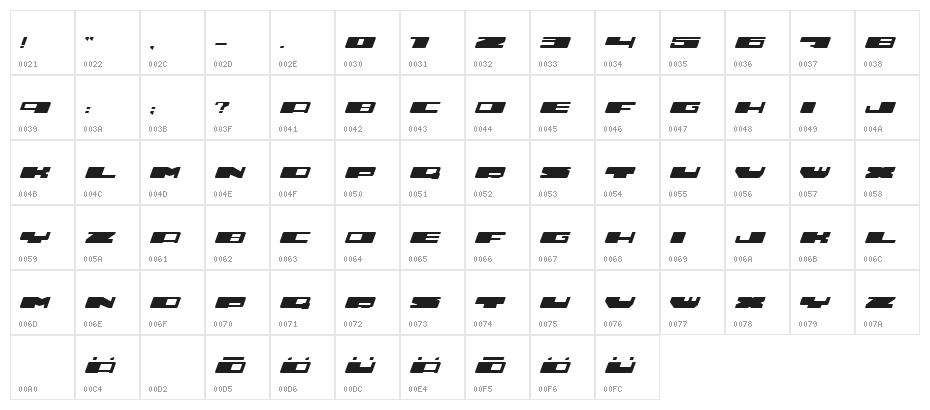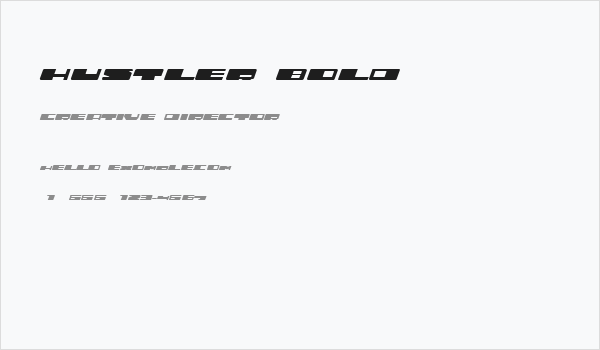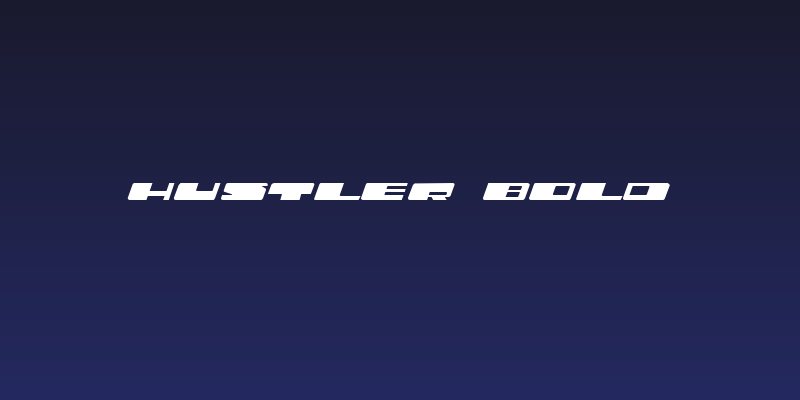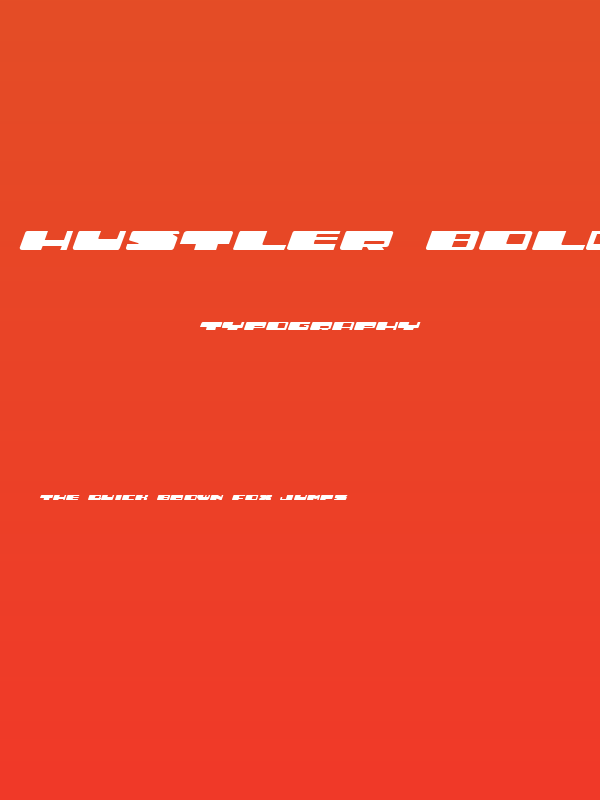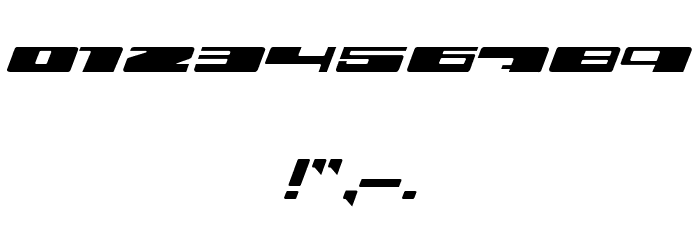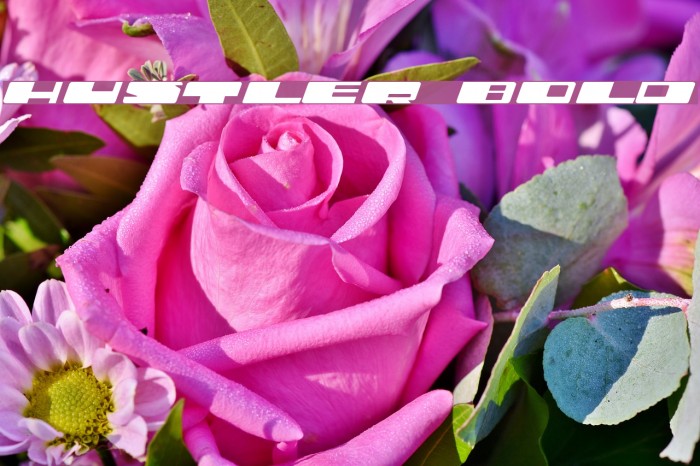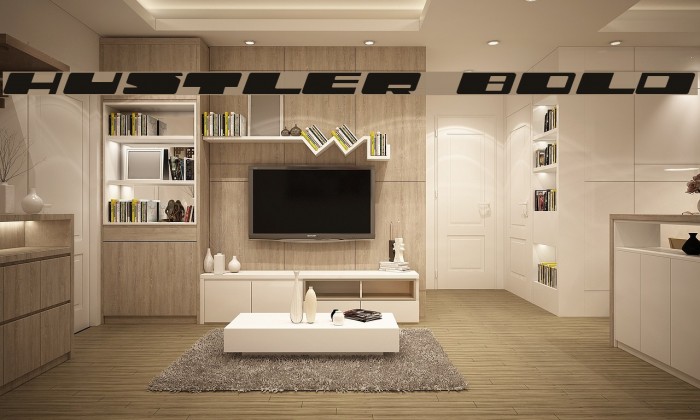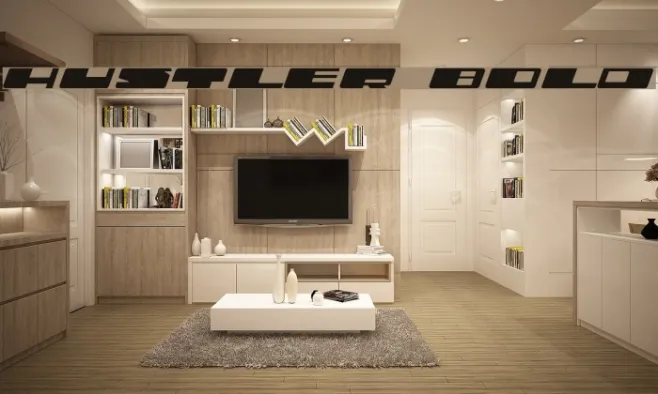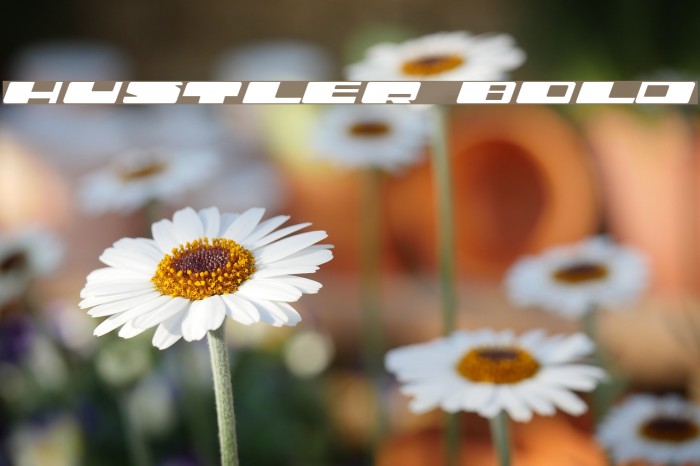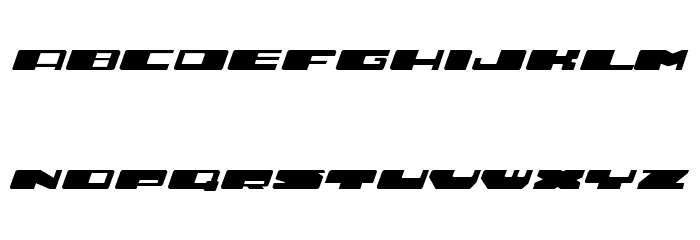
Hustler Bold Font
Hustler Bold Description
This font features a bold and dynamic design with a futuristic flair. The characters are constructed with sharp angles and a slightly italicized stance, giving them a sense of motion and energy. The uppercase and lowercase letters maintain a consistent style, with the lowercase being slightly smaller but equally bold. Numbers are designed to match the angular and robust style of the letters. The special characters are also crafted to fit seamlessly into the overall design. This font is ideal for projects that require a strong, impactful presence, such as sports branding, technology-related designs, or modern advertising campaigns.
| Proposed Projects | Ideal for sports branding, tech designs, and modern advertising. |